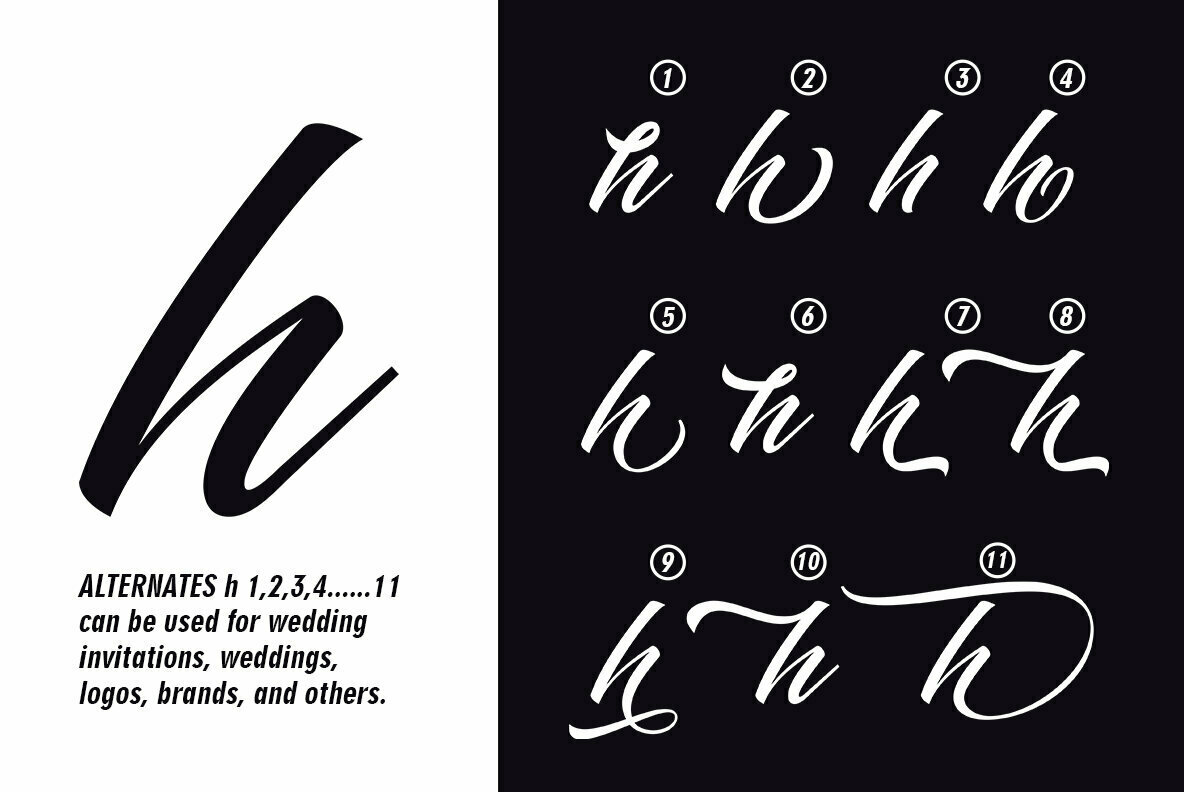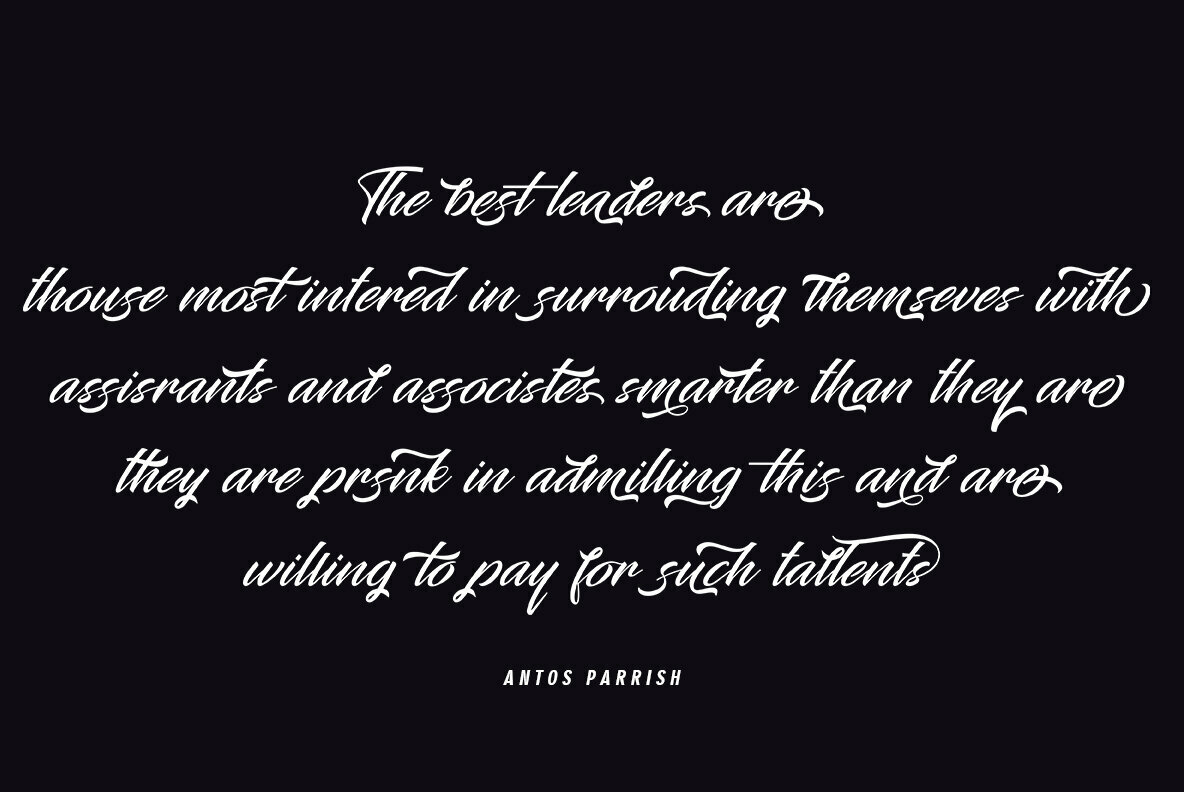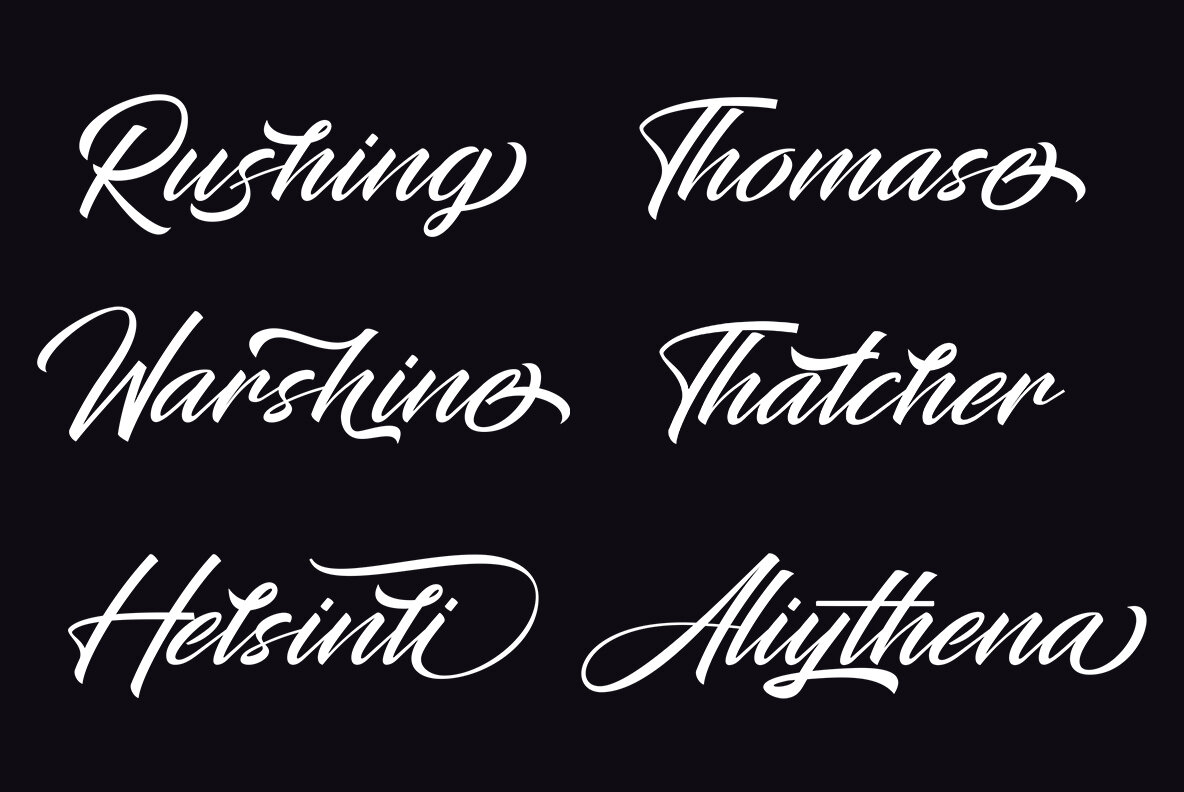
Wathelmina Font
Wathelmina, crafted by the versatile designer M Irvan Syouqi S, embodies the charm and fluidity of classic script fonts. This font is perfect for projects that demand a touch of sophistication and personalized style. Its curves and flourishes make Wathelmina an ideal choice for invitations, branding, and decorative artwork.Wathelmina: A Classic Script for Elegant Designs